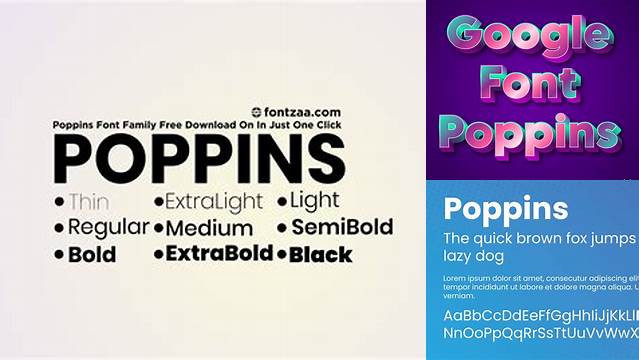
Expo Google Fonts: Using Poppins Like A Pro
Hey guys! Ever wondered how to spice up your Expo app with some awesome fonts? Well, you've come to the right place! Today, we're diving deep into using Google Fonts, specifically the super popular Poppins font, in your Expo projects. Trust me, it’s easier than you think, and the results are totally worth it. So, let's get started and make your app look amazing!
What are Google Fonts and Why Use Them?
Before we jump into the specifics of Poppins, let’s quickly chat about Google Fonts in general. Google Fonts is a fantastic library of over a thousand free, open-source fonts. They’re designed to be web-friendly, meaning they look great on screens and are easy to load. Using Google Fonts can seriously level up your app's design, giving it a professional and polished feel. Plus, they’re free – who doesn’t love that?
Benefits of Integrating Google Fonts in Expo Apps
Integrating Google Fonts into your Expo apps brings a plethora of benefits. First off, it drastically improves the visual appeal of your app. Imagine using a generic, system-default font versus a sleek, modern font like Poppins – the difference is night and day! Google Fonts also offer a wide variety of styles and weights, allowing you to create a consistent and visually engaging user experience. Furthermore, since Google Fonts are optimized for the web, they ensure fast loading times, which is crucial for keeping your users happy. Think about it: a beautiful app that loads quickly? Yes, please!
Understanding the Poppins Font Family
Poppins is a geometric sans-serif typeface that’s become super popular in recent years. Its clean lines and modern aesthetic make it incredibly versatile, suitable for everything from headings to body text. But did you know Poppins comes in a bunch of different weights, from thin to extra-bold? Understanding the Poppins font family – the various weights and styles available – is key to using it effectively in your designs. We'll explore these different weights and how to use them to create visual hierarchy and emphasis in your app later on.
Why Poppins? The Popular Choice Explained
So, why all the hype around Poppins? Well, it's popular for a reason! This font boasts a clean, modern aesthetic that works wonders across various app designs. Its geometric structure gives it a contemporary feel, making it a fantastic choice for apps aiming for a sleek and polished look. Plus, Poppins is incredibly readable, which is super important for user experience. It's not just about looking good; it's about making your content easy to read and understand. Trust me, your users will thank you for it!
The Versatility of Poppins in App Design
One of the coolest things about Poppins is its versatility. You can use it for just about anything in your app design! Think big, bold headings that grab attention, clean and readable body text that keeps users engaged, and even subtle UI elements that need a touch of elegance. Poppins adapts beautifully to different contexts, making it a reliable choice for consistent branding. Whether you're designing a minimalist app or something more complex, Poppins can fit right in.
Poppins and Its Impact on User Experience (UX)
Let’s talk UX. The font you choose can actually have a big impact on how users experience your app. A well-chosen font like Poppins can improve readability, making it easier for users to digest information. This, in turn, can lead to a more enjoyable and efficient user experience. Imagine trying to read a paragraph in a cluttered, hard-to-read font – frustrating, right? Poppins, with its clear and modern design, helps avoid this issue, ensuring your users have a smooth and pleasant experience.
Setting Up Your Expo Project for Google Fonts
Alright, let's get practical! Before we can start rocking Poppins in our Expo app, we need to set things up correctly. This involves installing the necessary packages and configuring your project to handle custom fonts. Don’t worry, it’s not as scary as it sounds! We'll walk through it step by step.
Installing the Required Expo Packages
First things first, we need to install the expo-font and expo-app-loading packages. These are essential for loading custom fonts in Expo. Open up your terminal, navigate to your project directory, and run: expo install expo-font @expo-google-fonts/poppins expo-app-loading. This command installs the necessary packages along with the Poppins font family package. Easy peasy!
Configuring App.js for Font Loading
Next up, we need to configure our App.js file to handle font loading. This involves importing the necessary hooks and components, and then using them to load the fonts before the app renders. We’ll use the useFonts hook from @expo-google-fonts/poppins and the AppLoading component from expo-app-loading. This setup ensures that your fonts are fully loaded before your app tries to display them, preventing any weird rendering issues.
Understanding expo-font and expo-app-loading
Let’s quickly break down what these packages do. expo-font is the core package for loading custom fonts in Expo apps. It provides the functionality to load fonts from local files or remote URLs. expo-app-loading, on the other hand, is a component that helps you delay the rendering of your app until certain resources, like fonts, are loaded. Together, they ensure a smooth font loading experience, preventing your app from showing default fonts before your custom fonts are ready.
expo-fontand other related packages. - Google Fonts Website: The Google Fonts website has a wealth of information about Poppins and other fonts, including usage guidelines and design inspiration.